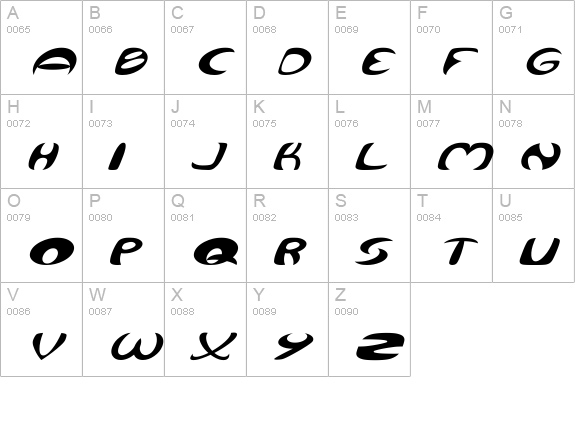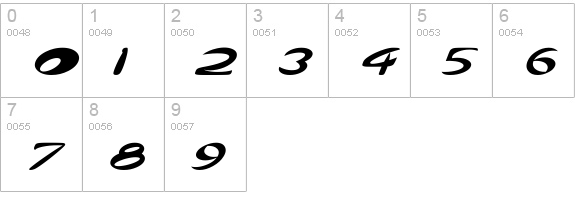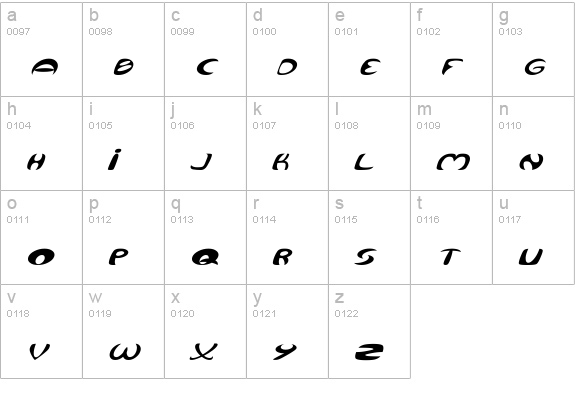
Qurve Wide Italic Font Details
Qurve Wide Italic is a distinctive, extended-width, italic variant in the Qurve typeface family \xE2\x80\x94 well suited to design and typography projects.
Qurve Wide Italic font is a visually captivating typeface that effortlessly combines elegance and modernity. With its bold lines and sleek curves, this font exudes a sense of contemporary sophistication. The italicized style adds a touch of flair and dynamism to any design project, making it perfect for headlines, logos, and branding materials. What makes Qurve Wide Italic font even more appealing is that it is available for free download at FontsMarket.com. This means that designers, creators, and enthusiasts can easily access this font without any financial constraints. Whether you're a professional designer working on a client project or an aspiring artist looking to enhance your creative endeavors, the accessibility of Qurve Wide Italic font ensures that you can add a stylish touch to your work without breaking the bank. The versatility of Qurve Wide Italic font allows it to adapt effortlessly to various design styles and themes. It can seamlessly blend into both minimalist and extravagant designs, offering endless possibilities for customization. Its wide range of characters, including uppercase and lowercase letters, numerals, punctuation marks, and special symbols, ensures that you have all the tools you need to create visually stunning compositions. When it comes to readability, Qurve Wide Italic font excels. Its carefully crafted letterforms ensure that each character is easily discernible, even at smaller sizes. This makes it an excellent choice for body text in magazines, brochures, and websites, where legibility is key. Whether you're a professional designer or an amateur enthusiast, Qurve Wide Italic font is a valuable addition to your font library. Its stylish allure, coupled with its free availability at FontsMarket.com, makes it a must-have resource for any design project. So, don't miss out on the opportunity to elevate your designs with this captivating and freely accessible font.